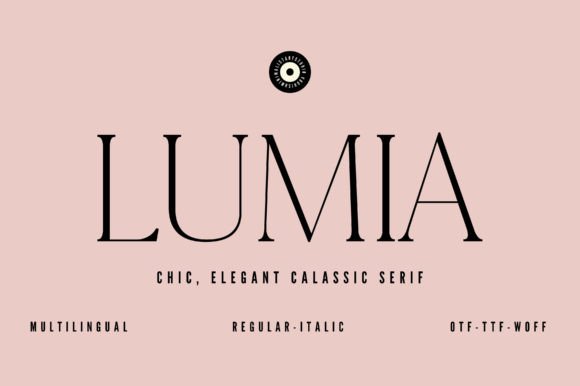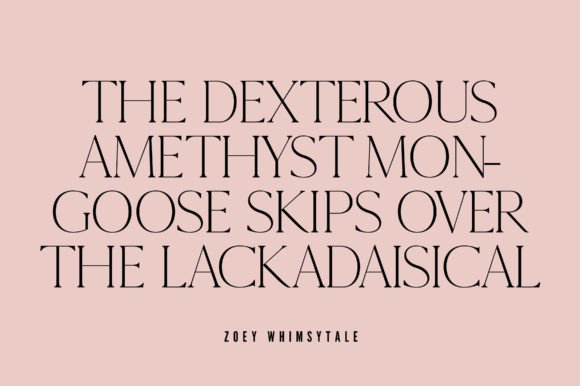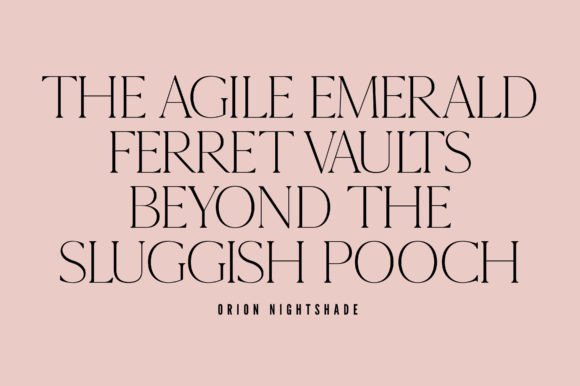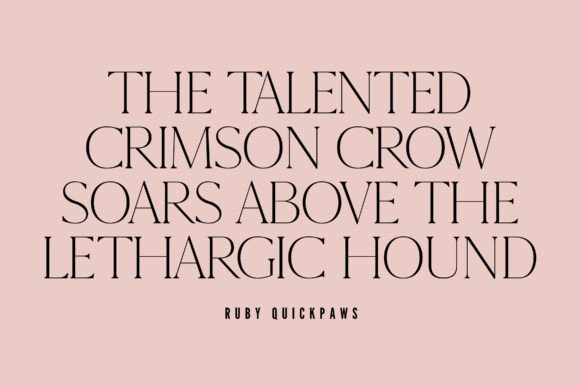
Lumia Font
About the Lumia Font
Crafted with precision, the Lumia Font is ready to bring your ideas to life. Elevate your designs with the exquisite charm of the “LUMIA” serif typeface. Crafted for the modern aesthetic, this typeface effortlessly combines the timeless appeal of serifs with a minimalist twist, resulting in a font that’s both delicate and chic.
Lumia excels in headline usage, branding applications, and short-form text within sophisticated marketing materials or packaging designs. Its elegant minimalism makes it ideal for logos, short taglines, and high-end product labels. However, its delicate nature makes it less suitable for body text or long paragraphs, and it might prove challenging to read in smaller sizes or within user interfaces.
Pairing Lumia with a clean sans-serif like Open Sans or Lato provides a strong contrast while maintaining a modern feel. For a more luxurious effect, consider pairing it with a script font such as Great Vibes, but use it sparingly as an accent. A geometric sans-serif like Futura could also create a striking yet balanced composition, enhancing Lumia’s inherent sophistication.
Lumia projects a sophisticated and subtly elegant personality, best suited for brands aiming for a refined and minimalist aesthetic. Its charm lies in its understated grace and timeless appeal, making it a versatile yet refined choice for discerning designers.